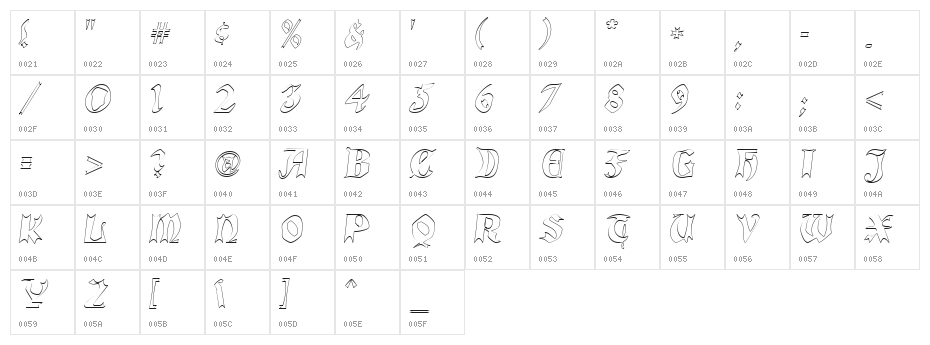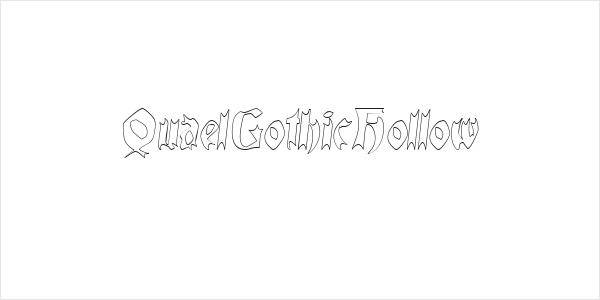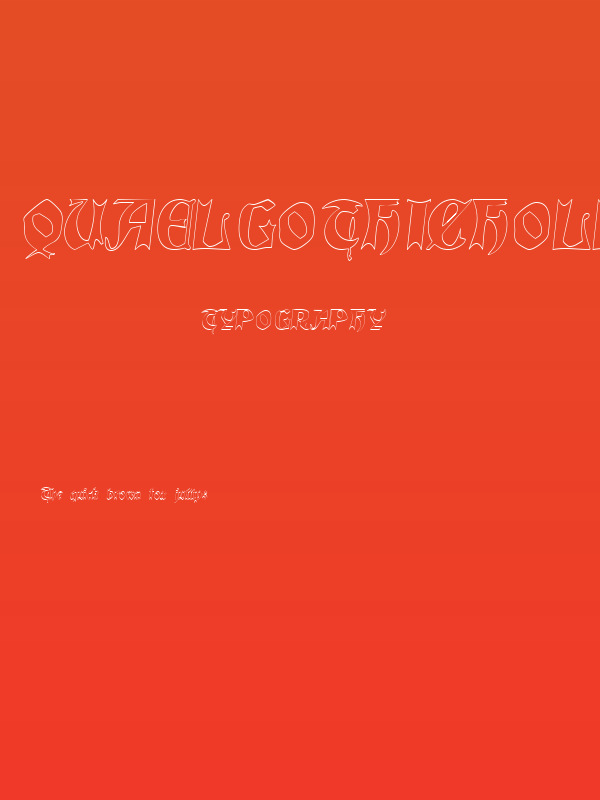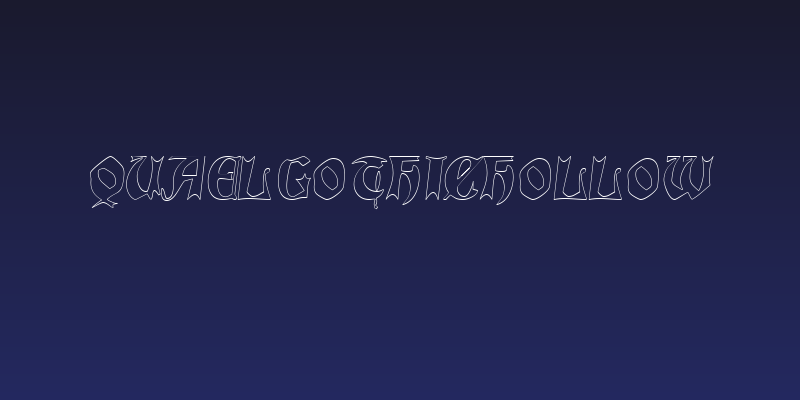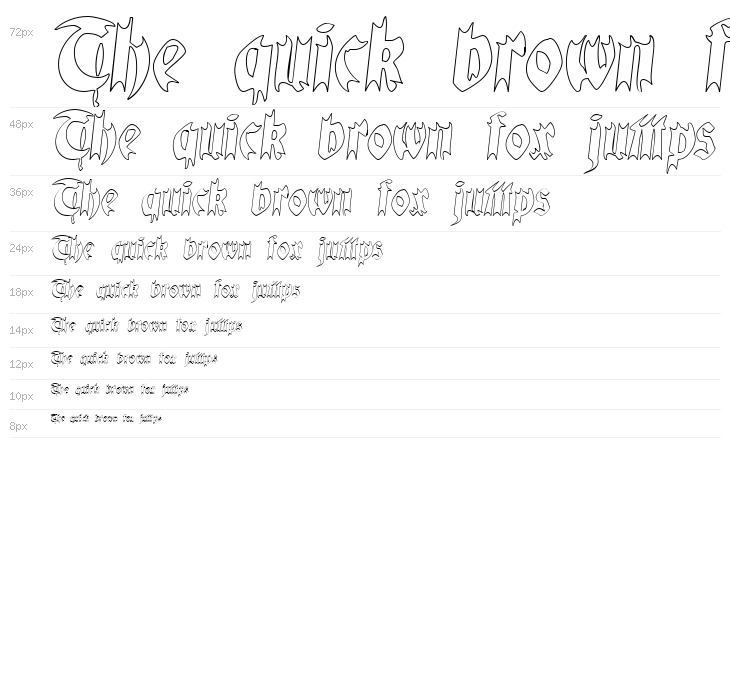
QuaelGothicHollow Font
QuaelGothicHollow Description
This font features a bold, hollow design with a gothic influence, characterized by sharp angles and dramatic curves. The uppercase letters exhibit a strong presence with their wide, open interiors and pointed serifs, while the lowercase letters maintain a consistent style with slightly more fluidity. The numbers and special characters follow the same aesthetic, ensuring a cohesive look across all glyphs. The font's unique style makes it stand out, offering a blend of traditional gothic elements with a modern twist. Its hollow nature adds a layer of complexity and visual interest, making it suitable for eye-catching designs.
| Overall Style | Gothic, Modern |
| Proposed Projects | Ideal for posters, album covers, branding, and any project requiring a bold, gothic aesthetic. |